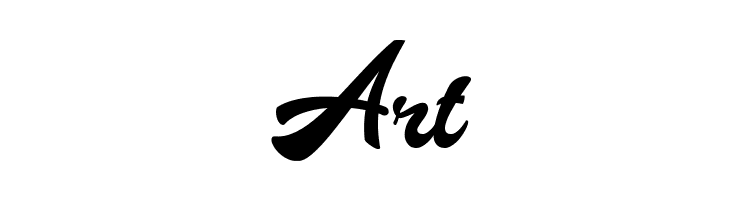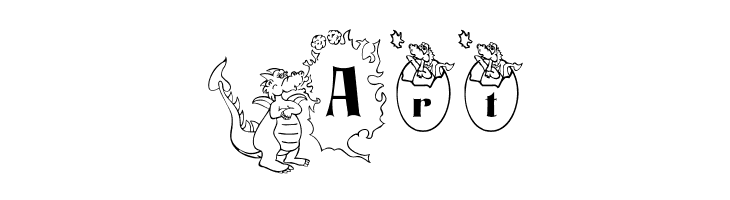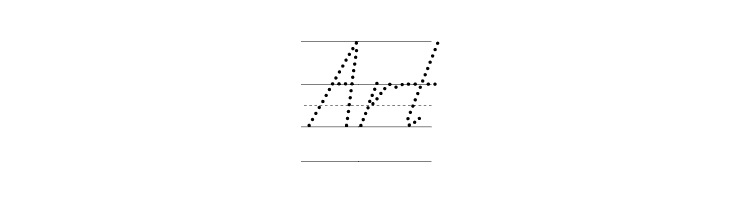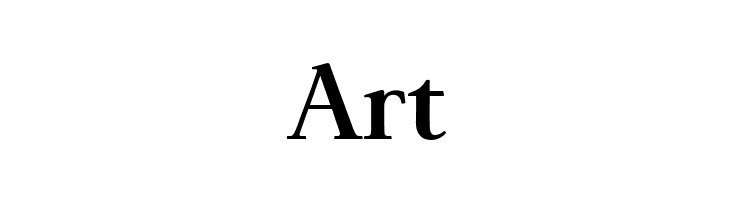
A graceful and elegant script font with flowing, interconnected letters.
A bold, cursive font with a flowing, handwritten style.
A playful, dragon-themed decorative font perfect for fantasy projects.
An organic, vine-like decorative font with a whimsical, fantasy-inspired style.
A clean, slanted handwriting font with a school script style.
A dotted guide font for practicing cursive handwriting.
A handwritten outline font with a casual and artistic style.
A bold, angular font inspired by ancient runic alphabets, perfect for historical or fantasy themes.
A runic-inspired font with angular, geometric shapes and medium contrast.
A bold serif typeface with classic elegance and strong readability.